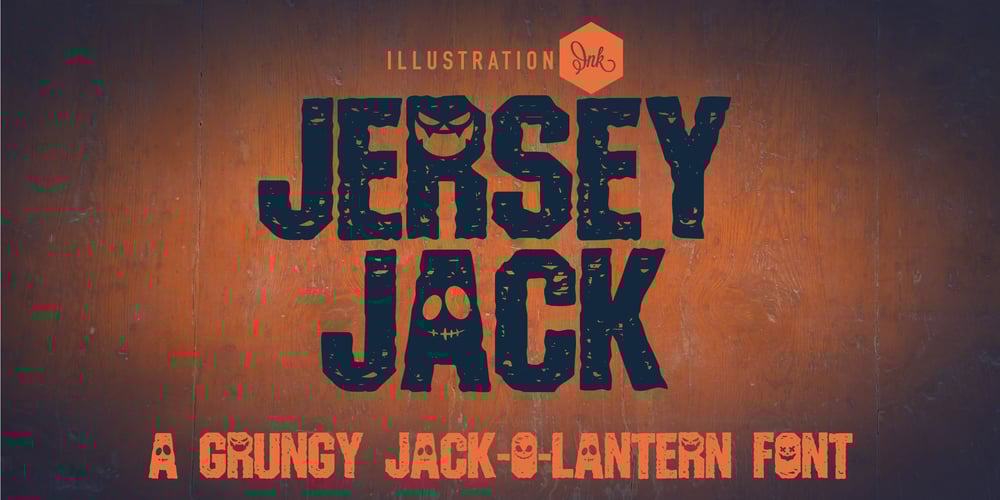
ZP Jersey Jack
ZP Jersey Jack font
ZP Jersey Jack Font Family was designed by Illustration Ink and published by Illustration Ink. ZP Jersey Jack contains 1 styles and family package options. This athletic-style font sports a lot of texture and grunge with a number of jack-o-lantern style faces throughout. A hand-crafted font is a font that is designed to look like it was written by hand. It is often used for invitations, greeting cards, and other items. Handwritten fonts can be either formal or informal, and they can be used for a variety of purposes.Some of the characteristics of handwritten fonts include: The letters are not perfectly uniform in size or shape. There may be slight variations in the spacing between letters and words. The font may have a “wiggly” or “squiggly” appearance. The font may be difficult to read at small sizes. Handwritten fonts can be a great way to add a casual touch to your designs. They can also be used to create a sense of nostalgia or whimsy. However, it is important to choose a handwritten font that is appropriate for the project you are working on. A formal handwritten font may not be appropriate for a casual invitation, while an informal handwritten font may not be appropriate for a corporate document.